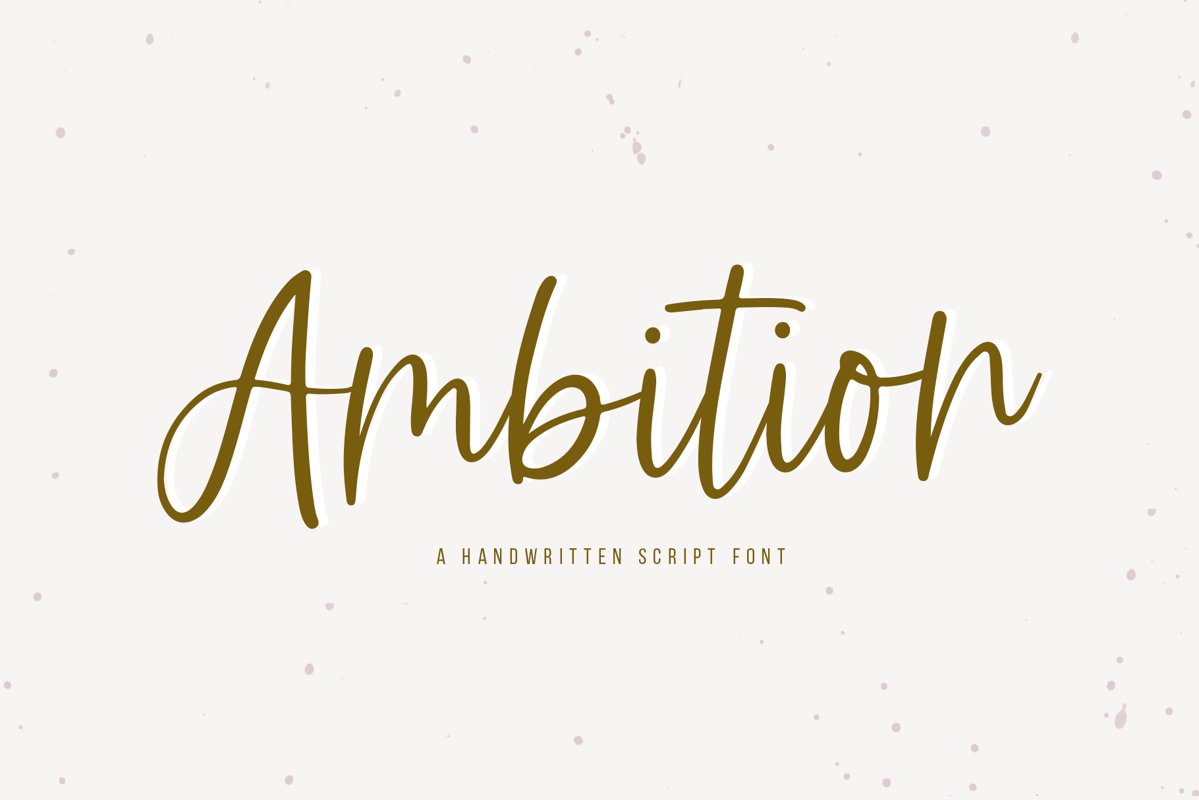
Ambition - A Handwritten Script Font
Ambition
Ambition is a fun handwritten script font!
This font is perfect for quotes, shirt designs, websites, branding, children's designs,  blogs, logos, invitations and more!